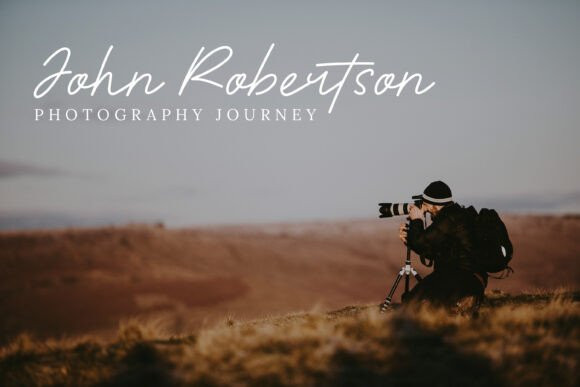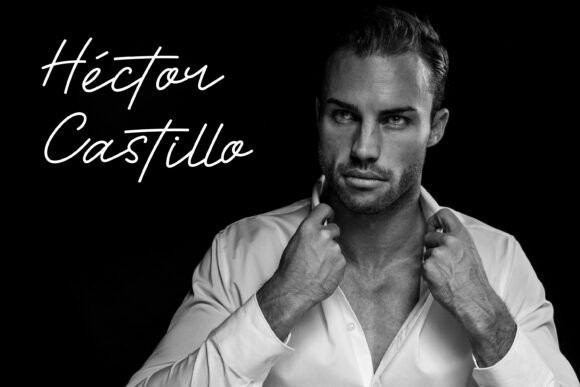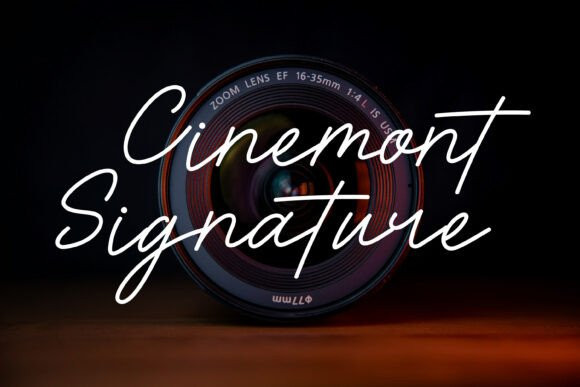
Cinemont Handwriting Font
Cinemont Handwriting Font – A Smooth Handwritten Script with Cinematic Flair Meet Cinemont Signature. The kind of font that walks into the room and turns heads without even trying. It’s smooth, stylish, and looks like it was written by a filmmaker who knows their way around both a lens and a leather journal.This handwritten script brings an authentic, personal vibe to anything you throw it on. Think photography logos, personal branding, YouTube titles, or even that moody coffee packaging you’ve been dreaming about.Whether you’re building a brand or just want your work to feel more personal, Cinemont Signature adds that handwritten magic that feels real, intimate, and stylish.